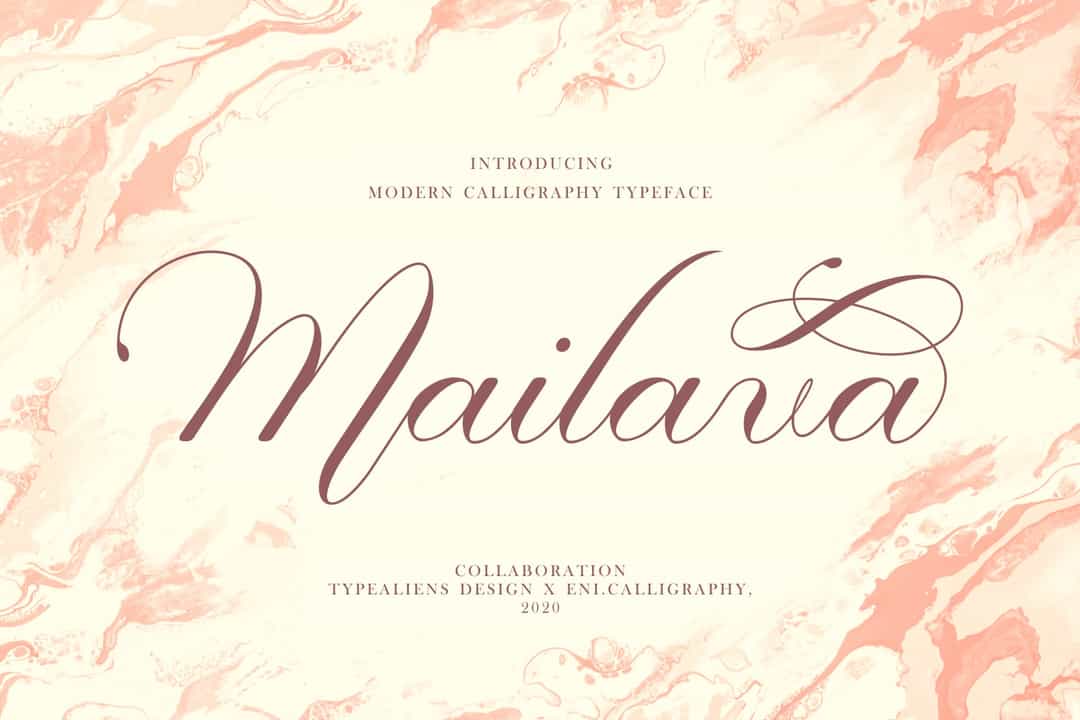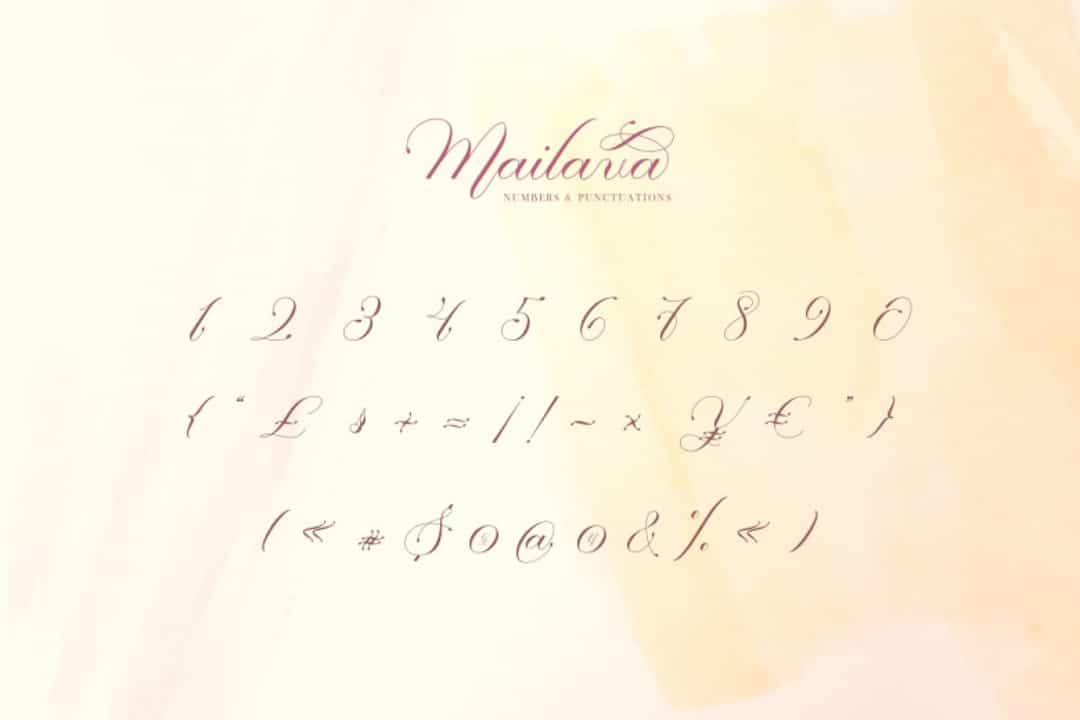
Mailava is an exquisite calligraph and font. PUA encoded, it allows access to all characters and washes with ease! Additionally, it features variable baseline widths, smooth lines, stunning glyphs, and beautiful alternates – providing endless creative potential!